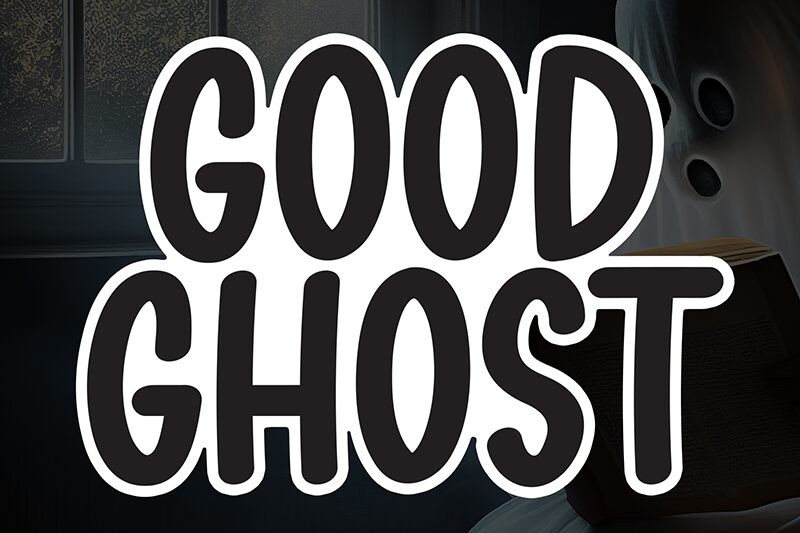
Good Ghost
Good Ghost font by Andi Moz is a free handwritten font that brings an expressive and youthful appeal with its energetic and casual style. Its condensed width, rounded shapes, and modern appearance give it a unique character, making it suitable for various fresh-looking designs.
The playful touch of Good Ghost allows using it in endless ways. Use it for posters, banners, logos and branding templates. Editorial design projects can also receive this font’s influence when presented on book covers or magazine headlines so that you can share engaging texts with the world every time!